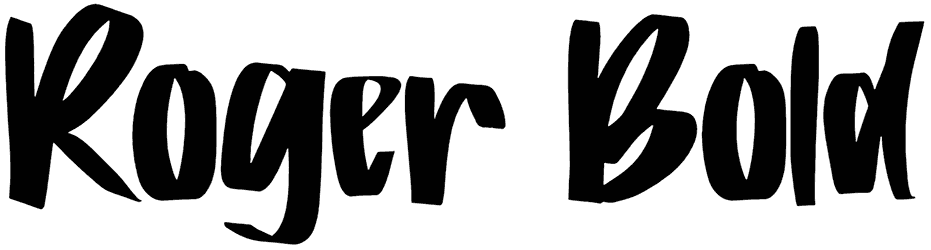
Roger Bold Font
Roger Bold is a funny and casual comic font with sharp edges. It comes with a complete set of characters and supports other languages as well. The handmade shape and playfulness of this marker font can add an adventurous touch to your design. It is a perfect choice for comic books, comedy concepts, cartoon posters, kids’ programs, etc.